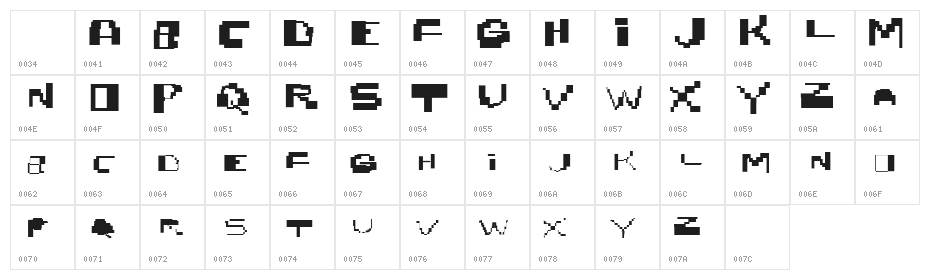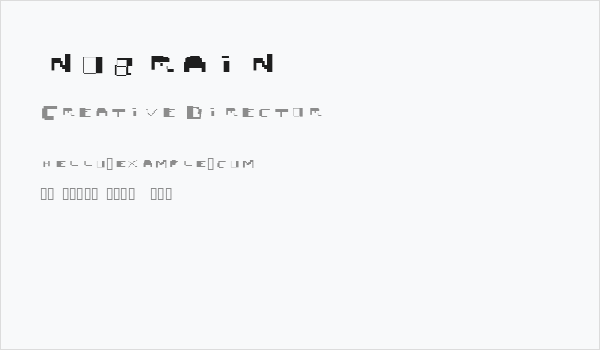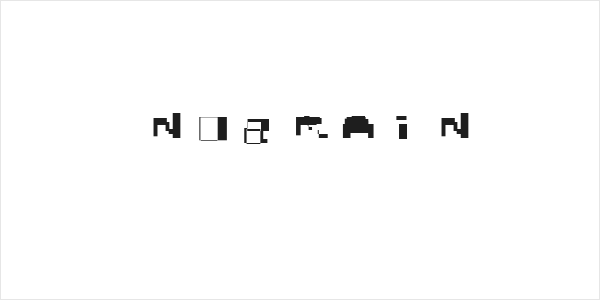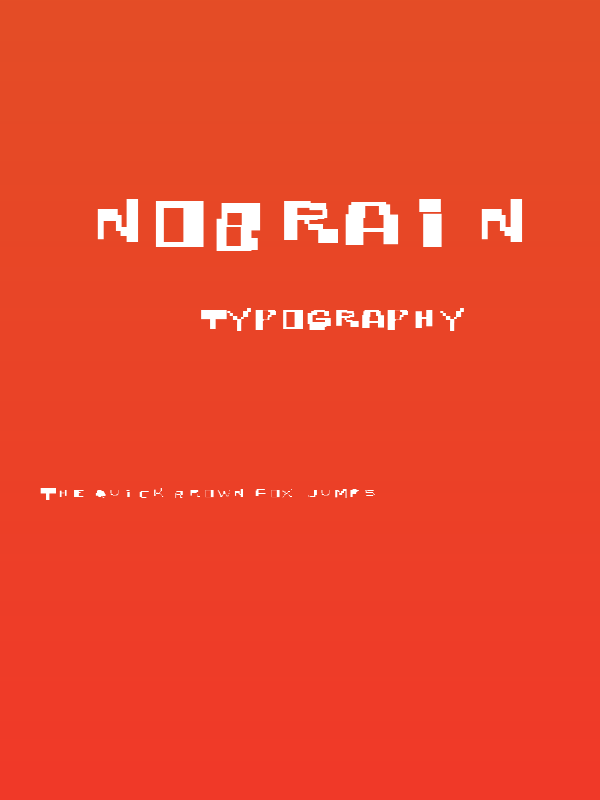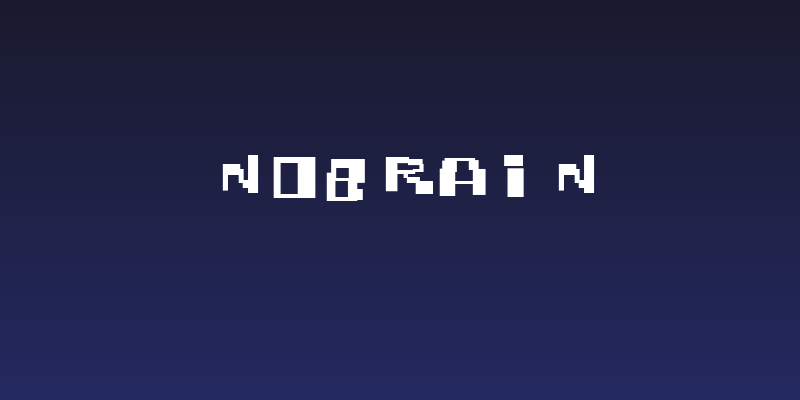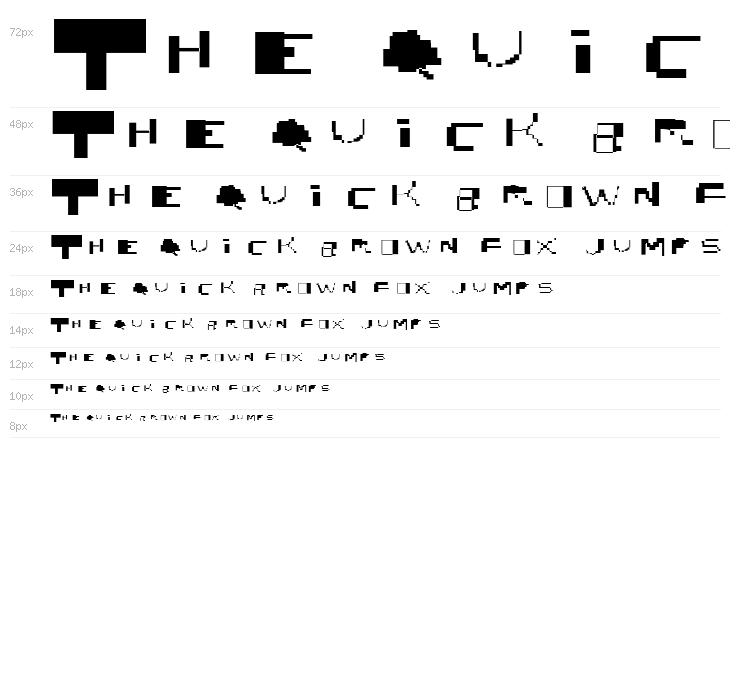
nobrain Font
nobrain Description
This font features a bold, blocky design with a distinctly pixelated aesthetic, reminiscent of early digital or video game graphics. The characters are constructed with sharp, angular edges and consistent stroke widths, giving it a uniform and cohesive appearance. The uppercase and lowercase letters maintain a similar style, with the lowercase being slightly smaller in scale. The numerals and special characters follow the same design principles, ensuring a consistent look across all glyphs. This font's unique style makes it stand out, ideal for projects that require a retro or digital theme.
| Overall Style | Retro, Digital |
| Proposed Projects | Ideal for video game design, digital art projects, retro-themed posters, and any creative work that requires a nostalgic digital look. |